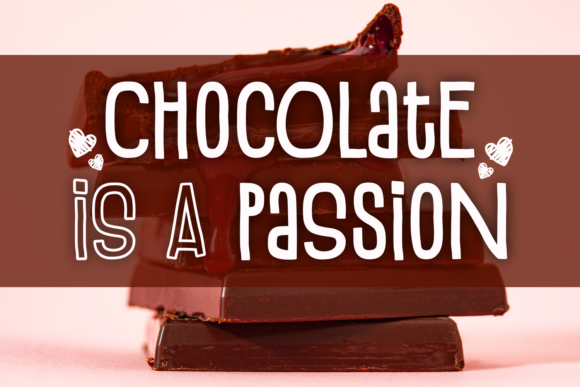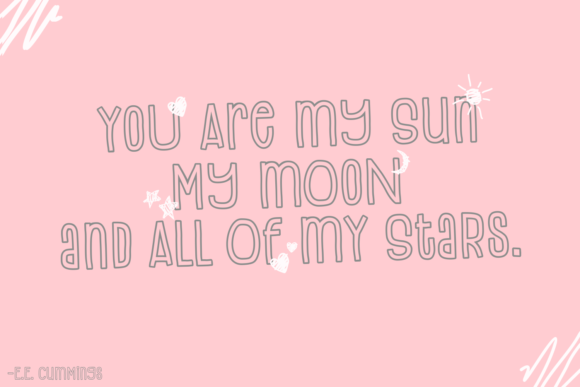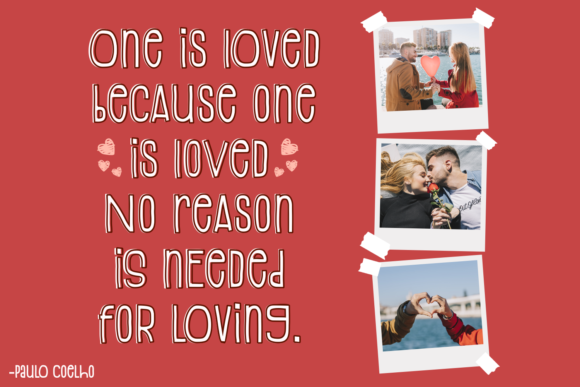
Introduction to Nhala Font
Remember that moment when you stumbled upon the perfect font for your creative project? The one that made your design pop and gave it that extra oomph? For designers, finding the right font can be a game-changer. It’s the difference between a good design and a great one.
That’s exactly what the Nhala Font offers – a unique and playful way to elevate your designs. With its soft, hand-lettered display font duo, you’ll be able to create stunning kids or Valentine’s Day art that’s sure to impress. And with PUA encoded bonus glyphs, you can add a decorative touch in seconds, giving your design a high-quality feel that’s perfect for any creative project.
Whether you’re working on a wedding invitation, social media post, or greeting card, Nhala Font is the perfect design resource to get inspired by its authentic feel and bring your ideas to life.
Key Features of Nhala Font
Honest Review: Nhala Font
Here are some aspects that work well: ✨ The Nhala Font has a high-quality feel to it, with crisp lines and a clear, readable font style. It’s perfect for any creative project that requires a clean and modern aesthetic. The font also comes with a transparent background, which makes it easy to use on any background color or image.
- High-quality design with crisp lines and clear font style
Tips for Getting the Most Out of Nhala Font
For optimal results, use Nhala Font in conjunction with a transparent background to create a seamless design. Experiment with different font sizes, colors, and styles to add a creative touch to your projects.
Nhala Font is perfect for creating eye-catching headings, titles, and captions for your designs. It’s also great for adding a unique touch to your presentations, documents, and social media posts.